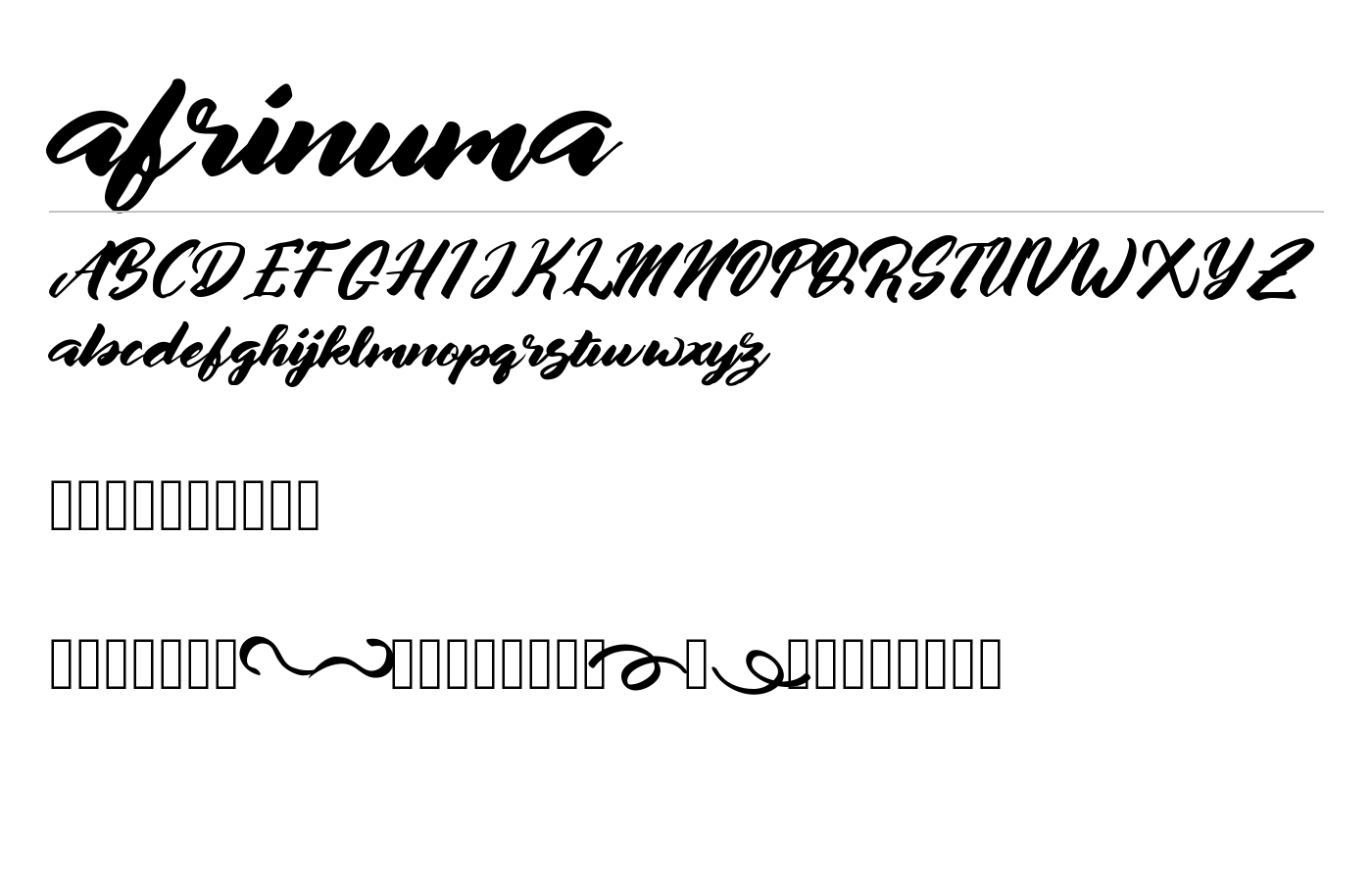
Afrinuma is a bold, cursive script font with flowing, connected letterforms that express a stylish and energetic vibe. Its strong strokes and elegant swashes make it ideal for creative branding, invitations, and headlines where a modern, personal touch is desired. This font works wonderfully to convey warmth and sophistication while maintaining readability in display uses.
afrinuma Font